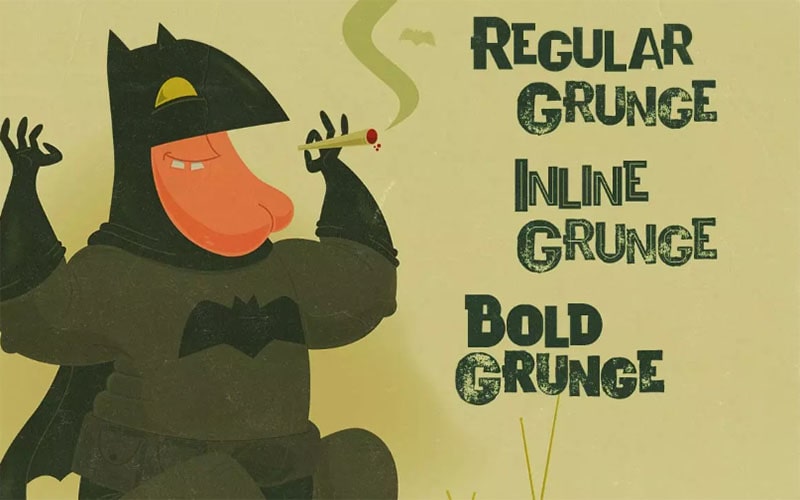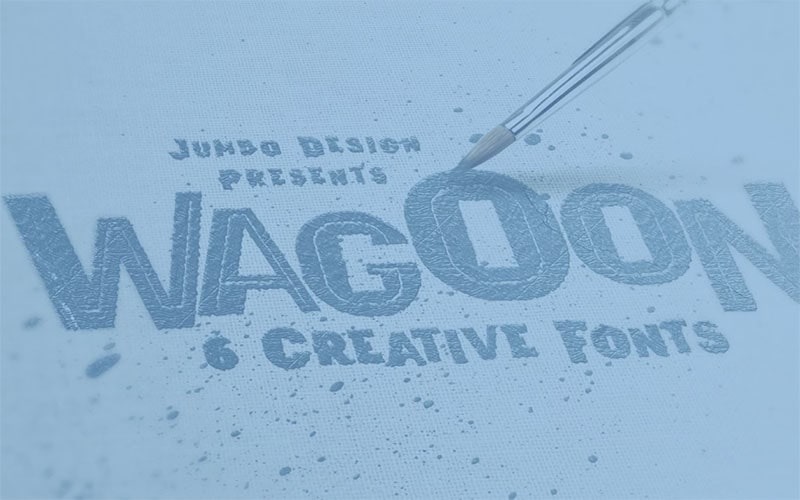
Wagoon Font is a captivating typeface known for its playful and versatile design. This font, with its rounded and friendly appearance, adds a touch of whimsy and creativity to any project.
It was designed by the talented graphic designer Peter Olexa. Peter is renowned for his innovative and creative typeface designs that often combine functionality with a distinctive aesthetic appeal.
His work spans a variety of styles, each characterized by meticulous attention to detail and usability in diverse design contexts. It comes in multiple styles that enhance its adaptability.
Styles are Wagoon Regular, Wagoon bold, and Wagoon italic. These styles are suitable for Logos and Branding, Children’s Books and Educational Materials, Posters and Flyers, and Packaging.
Wagoon features rounded, playful letterforms with a high degree of readability, making it perfect for both display and text use. Includes uppercase and lowercase letters, numerals, punctuation marks, and special symbols.